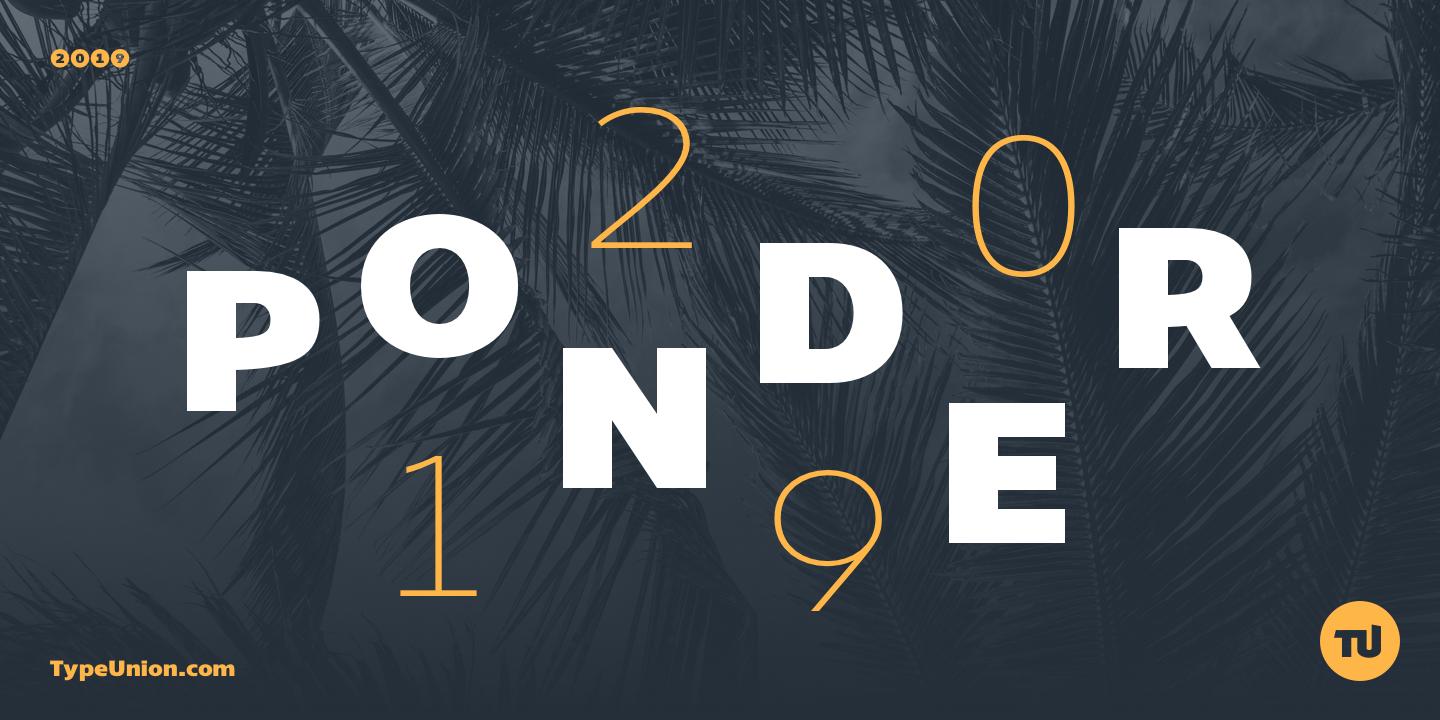
Ponder Font is perfect for philosophical publications, contemplative book covers, mindfulness app interfaces, meditation center branding, thoughtful academic journals, reflective poetry collections, introspective blog designs, wellness retreat materials, therapeutic practice signage, and intellectual lifestyle brands that require contemplative typography with serene wisdom and thoughtful sophistication.
What makes Ponder Font so exciting is its masterful embodiment of contemplative tranquility through carefully balanced letterforms that invite reflection and deep thought. This font features gentle, harmonious character shapes with subtle curves and measured proportions that create a sense of calm intellectual engagement. The thoughtful design approach balances readability with meditative qualities, making it perfect for brands and publications that want to encourage contemplation, learning, and mindful consideration of ideas.
The Ponder Font family includes multiple weights and styles: Thin, Light, Regular, Medium, Bold, and their corresponding Italic variants. Each weight maintains the signature contemplative character while offering comprehensive flexibility for thoughtful design applications and reflective typographic hierarchies.
Thoughtful designers consistently choose Ponder Font Free Download for projects requiring meditative typography that embodies intellectual depth and contemplative serenity. Whether you're developing wellness brand identities, creating philosophical publications, designing mindfulness applications, or crafting reflective marketing materials, this font delivers exceptional tranquility and intellectual appeal. The font's comprehensive character set supports multiple languages and includes contemplative styling options while ensuring optimal readability across all platforms and contemplative applications, making it an essential tool for designers working on mindful projects that demand serene, thoughtful, and intellectually sophisticated typography solutions with contemplative elegance and meditative calm.